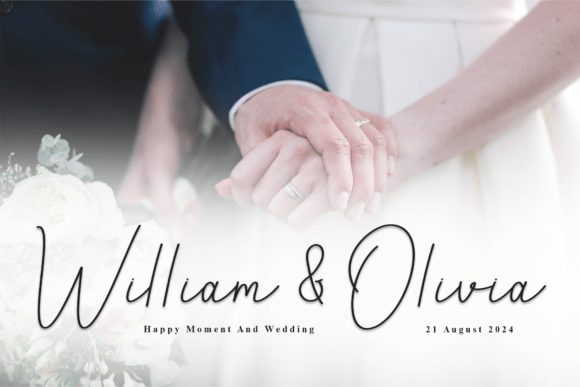
Introducing Beauty Santa Font: The Perfect Addition to Your Holiday Decorations
Are you looking for a unique and elegant font to add a personal touch to your holiday decorations, notes, and cards? Look no further than the Beauty Santa Font. This delicate, thin font is designed to resemble handwriting, giving it a soft and sophisticated style that’s perfect for the holiday season.
What is Beauty Santa Font?
Beauty Santa Font is a beautiful, handwritten font that’s designed to bring a touch of elegance and sophistication to your holiday projects. Its delicate lines and soft curves give it a warm and inviting feel, making it perfect for use in holiday decorations, gift tags, cards, and more.
One of the standout features of Beauty Santa Font is its unique, hand-written style. Unlike traditional fonts, which can often look cold and impersonal, Beauty Santa Font has a warm, human touch that makes it feel like it was written just for you.
Key Features of Beauty Santa Font
- Delicate and thin lines: The font’s delicate lines give it a light, airy feel that’s perfect for adding a touch of elegance to your projects.
- Handwritten style: The font’s handwritten style gives it a warm, personal touch that’s perfect for holiday projects.
- Soft and elegant: The font’s soft curves and elegant lines make it perfect for use in holiday decorations, gift tags, and cards.
- Easy to read: Despite its delicate lines, Beauty Santa Font is easy to read, making it perfect for use in body text as well as headings.
Uses for Beauty Santa Font
Beauty Santa Font is a versatile font that can be used in a variety of ways. Here are just a few ideas to get you started:
- Holiday decorations: Use Beauty Santa Font to add a personal touch to your holiday decorations, such as gift tags, garlands, and signs.
- Cards and invitations: Add a touch of elegance to your holiday cards and invitations with Beauty Santa Font.
- Notes and letters: Use Beauty Santa Font to add a personal touch to your holiday notes and letters.
- Social media graphics: Use Beauty Santa Font to create beautiful, eye-catching social media graphics for the holiday season.
Tips for Using Beauty Santa Font
Here are a few tips for getting the most out of Beauty Santa Font:
- Use it sparingly: While Beauty Santa Font is beautiful, it can be overwhelming if used too much. Use it sparingly to add a touch of elegance to your projects.
- Pair it with other fonts: Beauty Santa Font pairs well with other fonts, such as bold sans-serif fonts. Experiment with different pairings to find the one that works best for you.
- Experiment with colors: Beauty Santa Font looks beautiful in a variety of colors, from traditional holiday colors like red and green to more modern colors like metallic silver and gold.
Beauty Santa Font is a beautiful, elegant font that’s perfect for adding a personal touch to your holiday decorations, notes, and cards. Its delicate lines and soft curves give it a warm and inviting feel that’s sure to make your projects stand out. Whether you’re a designer, a DIY enthusiast, or just someone who loves the holiday season, Beauty Santa Font is a great addition to your font collection.